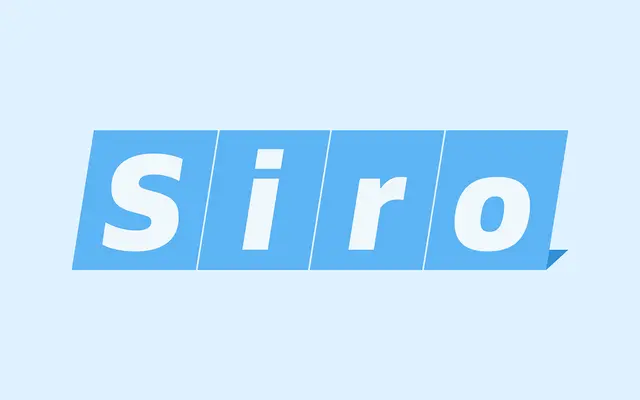
Siro
Siro specimen from Dharma Type
A neutral, text-optimised sans-serif in seven weights with matching italics, built around a large x-height for compact and on-screen use.
Designed by Ryoichi Tsunekawa, Siro is built on a clean letterform skeleton aimed at conveying a natural, unobtrusive impression across print and digital contexts. Its very large x-height is the defining optical choice, improving legibility at small sizes and in tight layouts. The family covers Western, Central and South Eastern European languages as well as Afrikaans, and ships with a thorough OpenType feature set including fractions, superior and inferior figures, ordinals and case-sensitive forms.
Described as clean and neutral with a large x-height optimised for text legibility; the simple letterform skeleton and text focus align with humanist sans conventions rather than strict geometric or grotesque models.